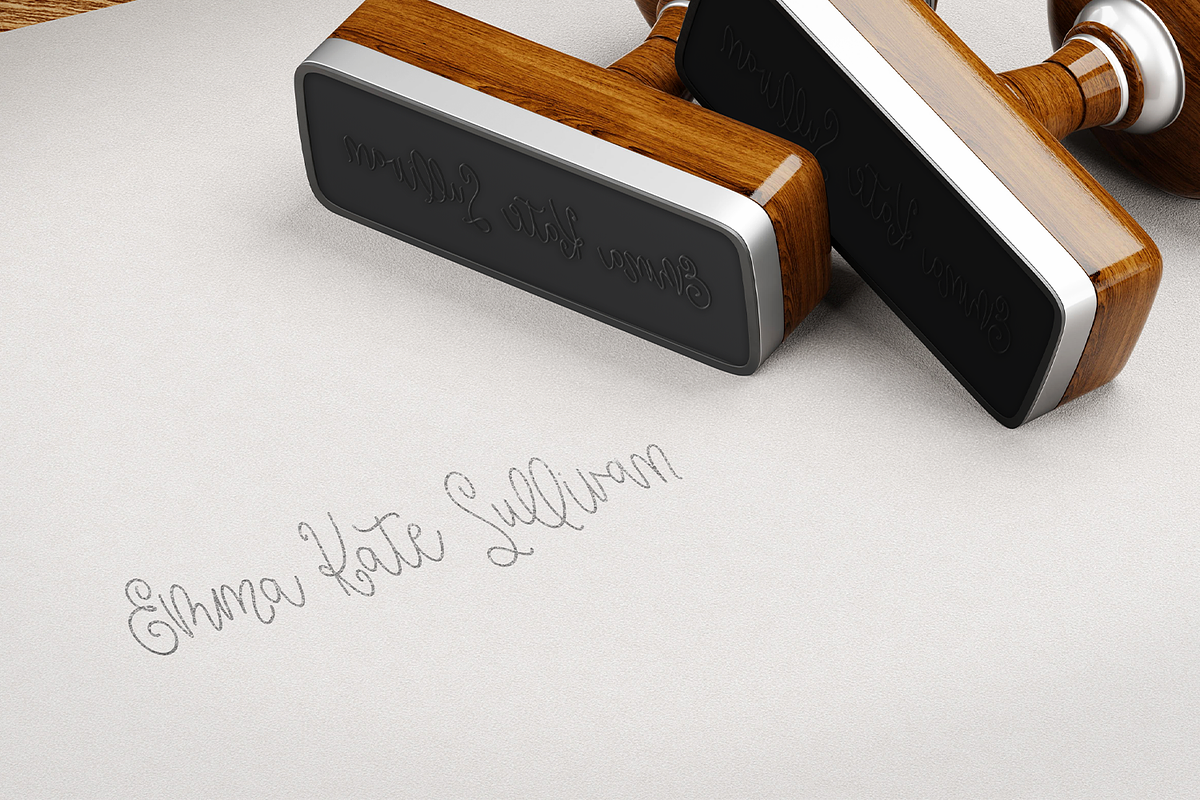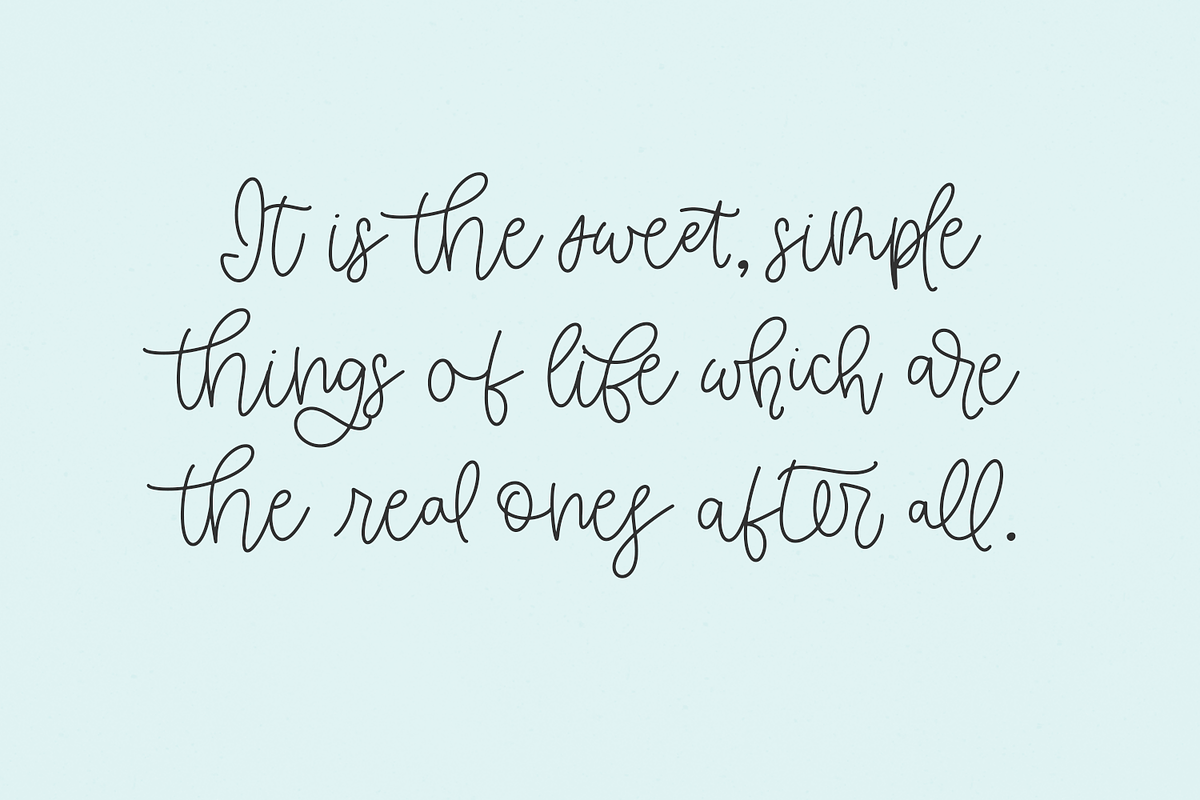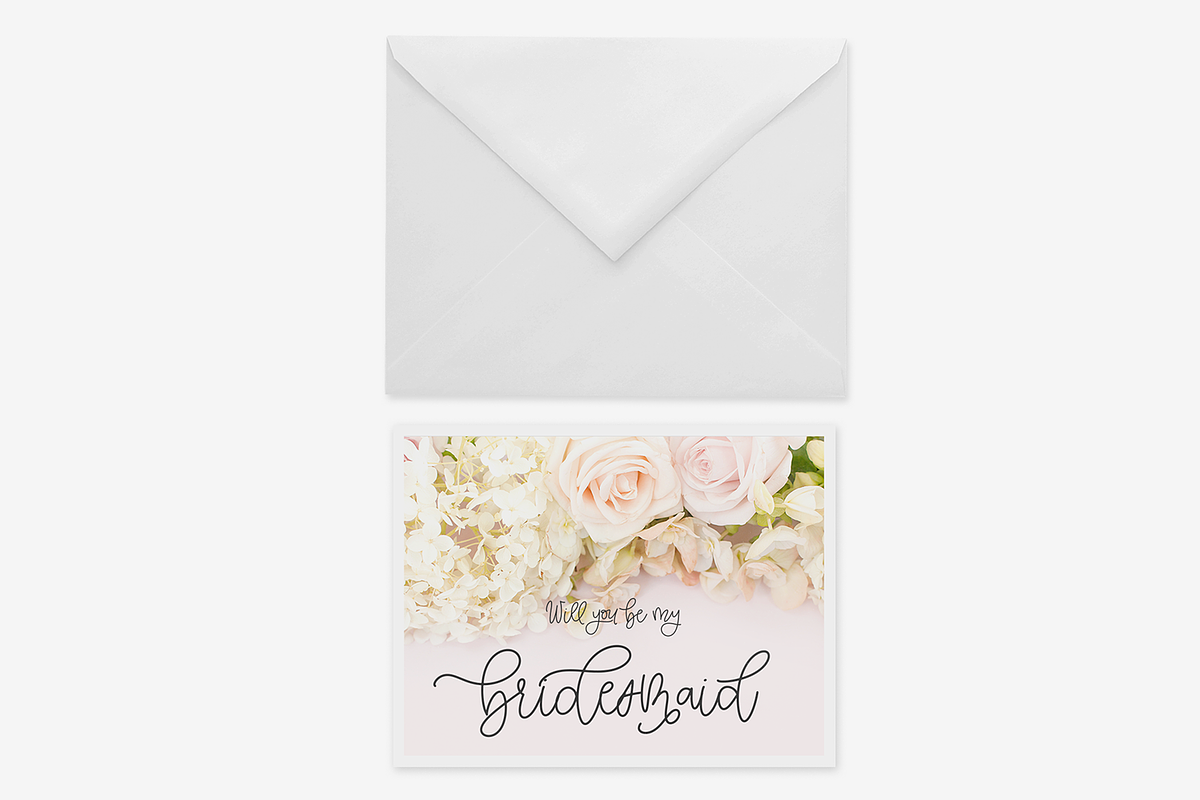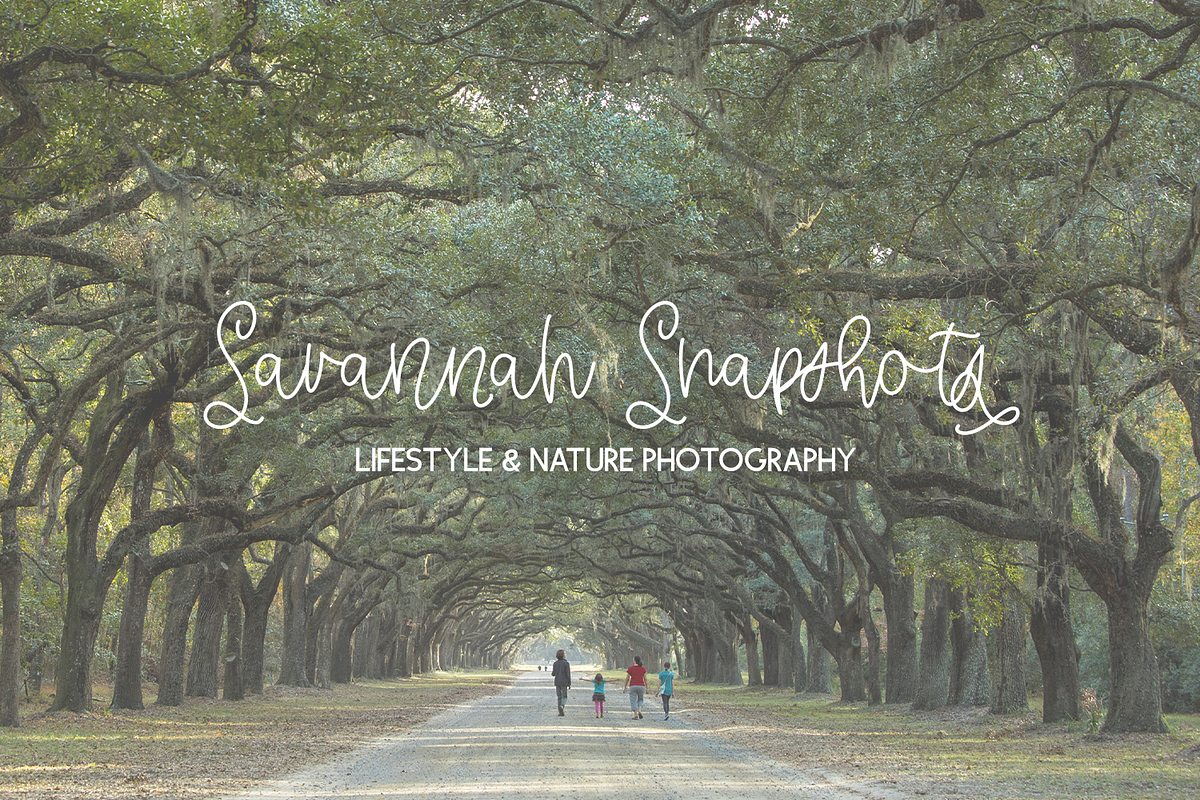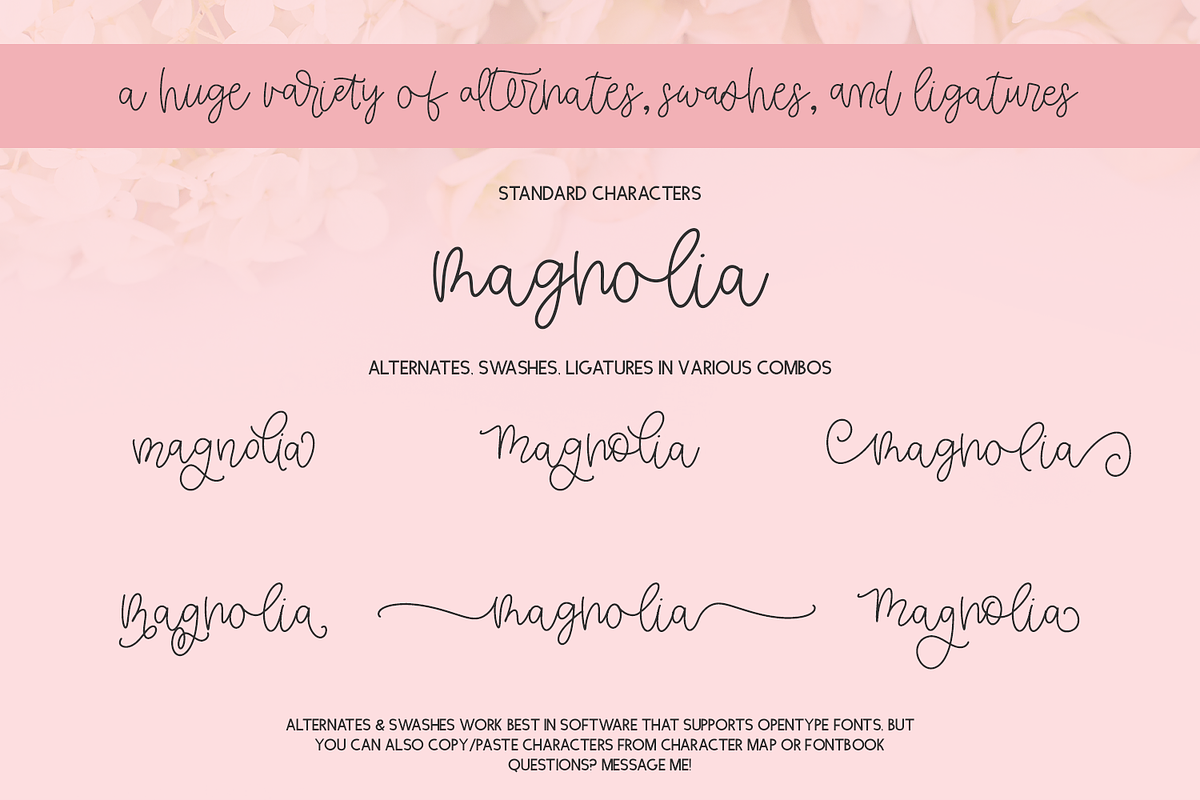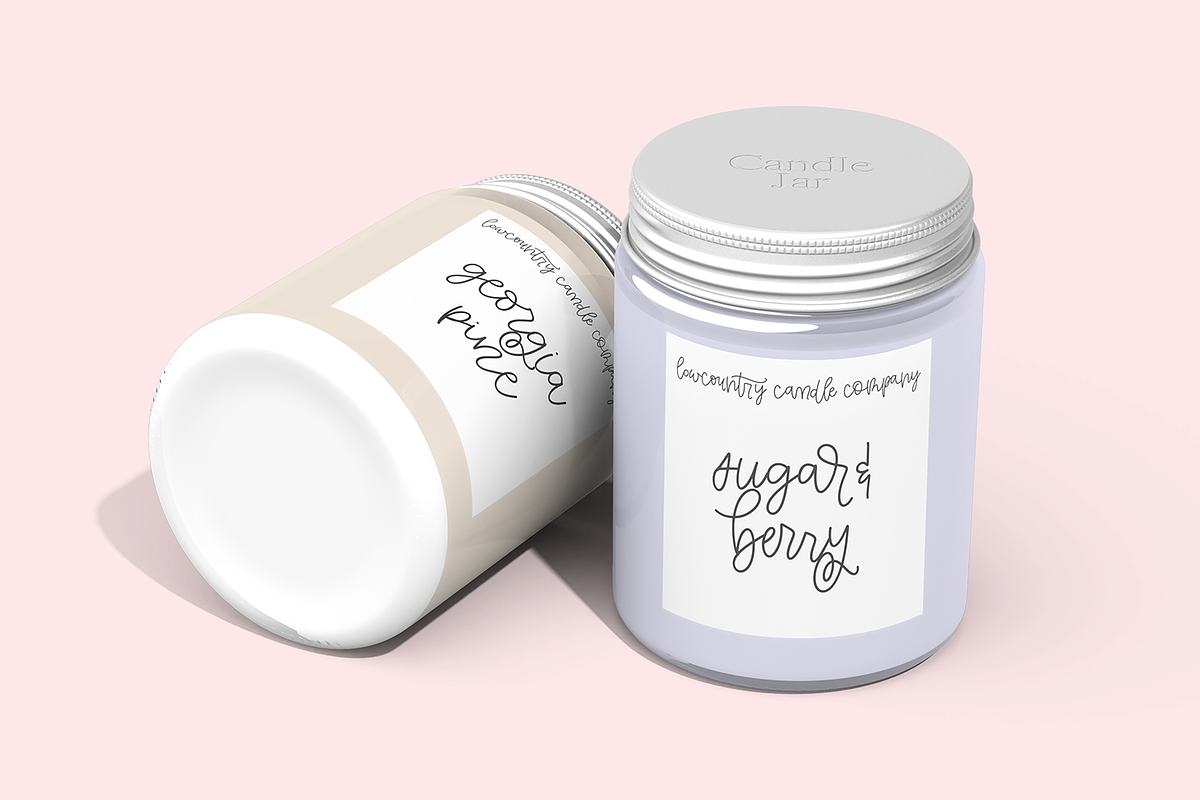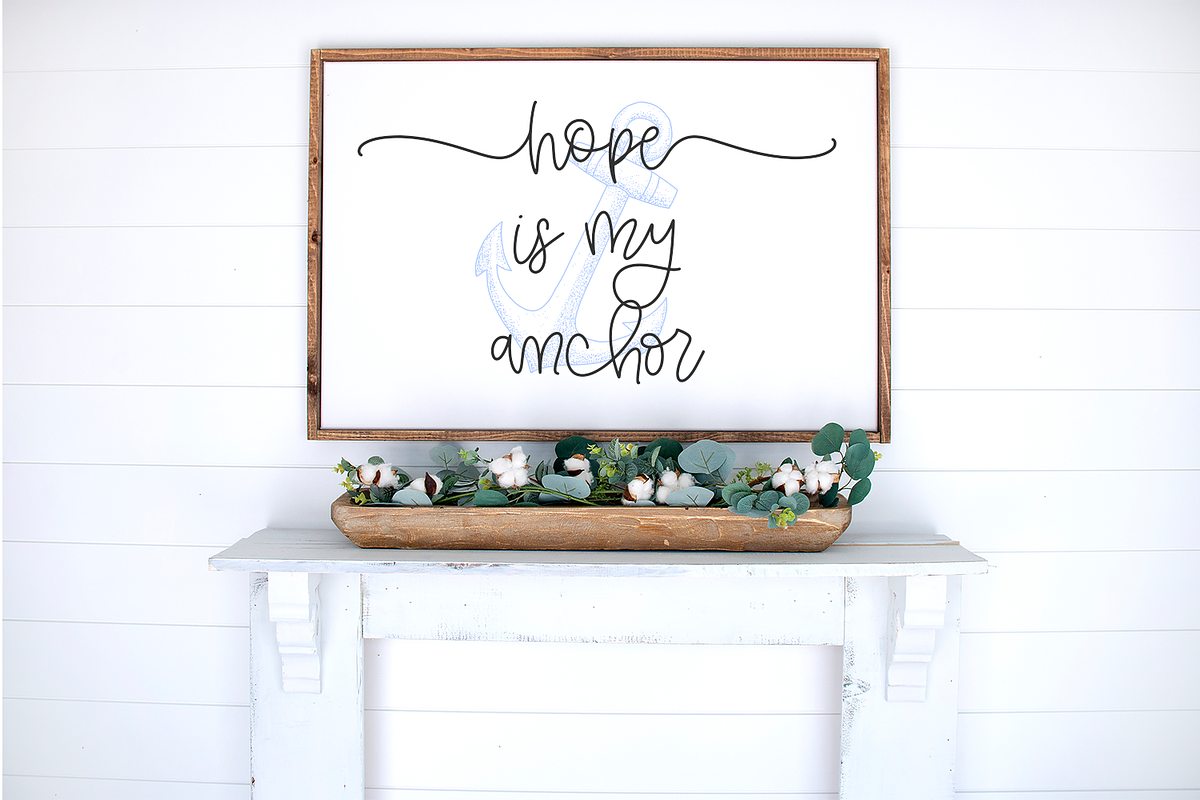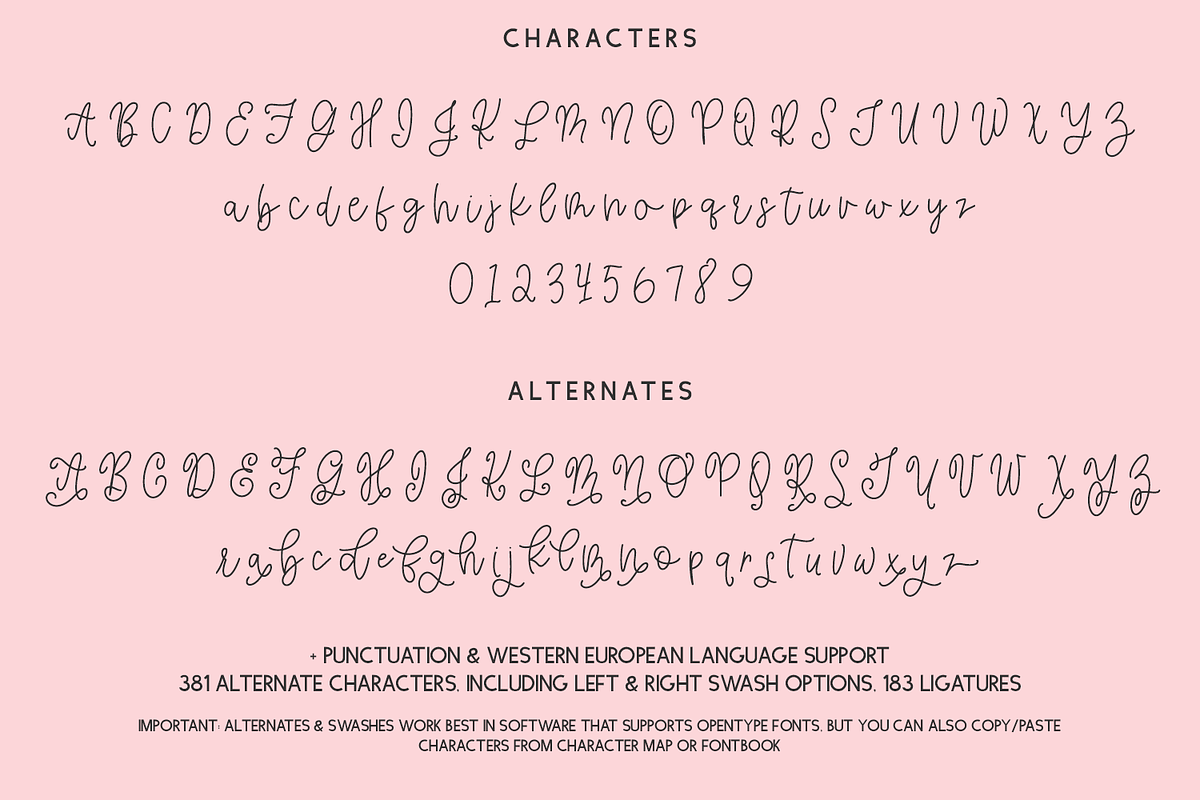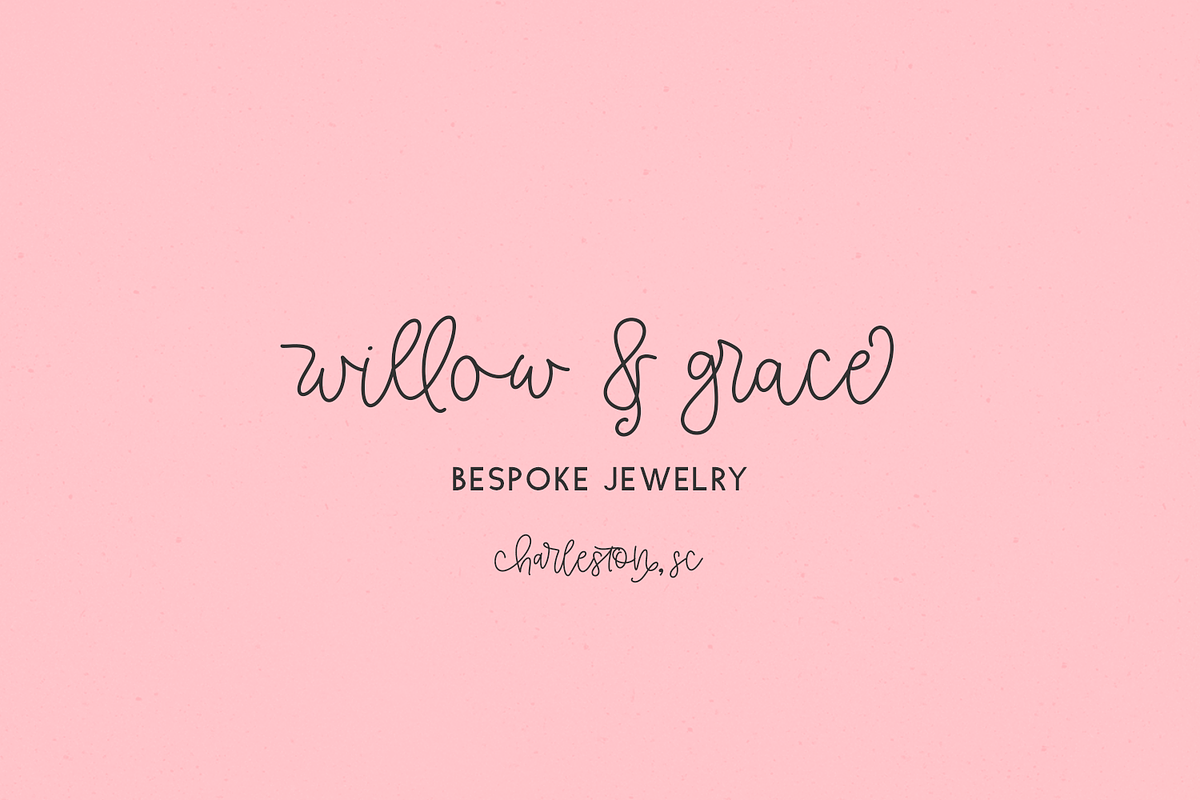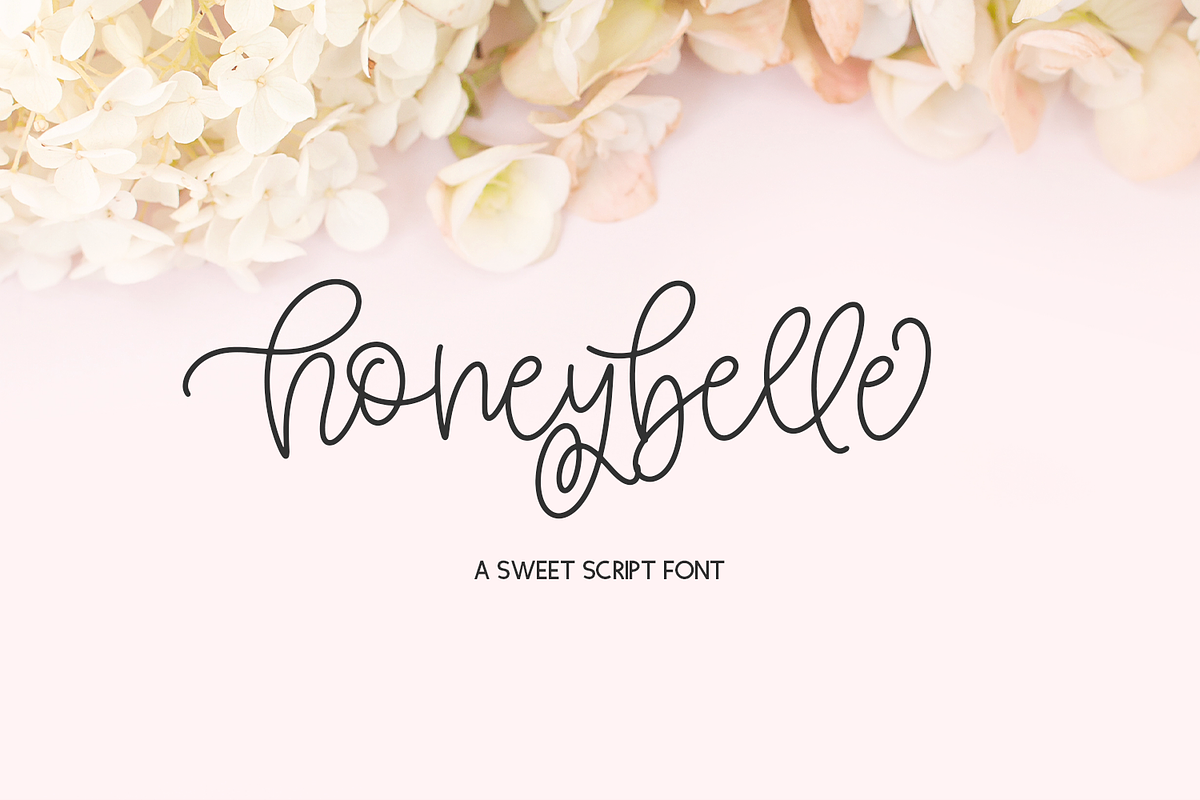
Honeybelle Calligraphy Script
Honeybelle Script is a bouncy monoline modern calligraphy script. This script font includes alternates and ligatures to provide options to customize your text. Honeybelle is sweet & feminine, making it the perfect fit for cute crafting projects, farmhouse decor, elegant or whimsical branding, and more. Please ensure you are using software that is OpenType friendly (Illustrator, Photoshop) to easily use the full range of features. You may also use the copy/paste method from Character Map (PC) or FontBook (Mac) if you are using software that is not OpenType friendly, like Design Space, Silhouette Studio, Canva, etc. Please feel free to reach out if you would like instructions ahead of time!
Honeybelle Script includes:
- full upper + lowercase characters
- numbers + punctuation
- 381 alternate characters, including individual alternate characters, flourished characters, and 4 sets of left & right lowercase swashes
- 183 ligatures
- Extensive language support including Western European language support - English, French, Spanish, Portuguese (Brazil), Portuguese (Portugal), Italian, German (Germany), German (Austria), Dutch, Danish, Swedish, Norwegian (Bokmรฅl and Nynorsk), Finnish, Icelandic, Irish, Welsh